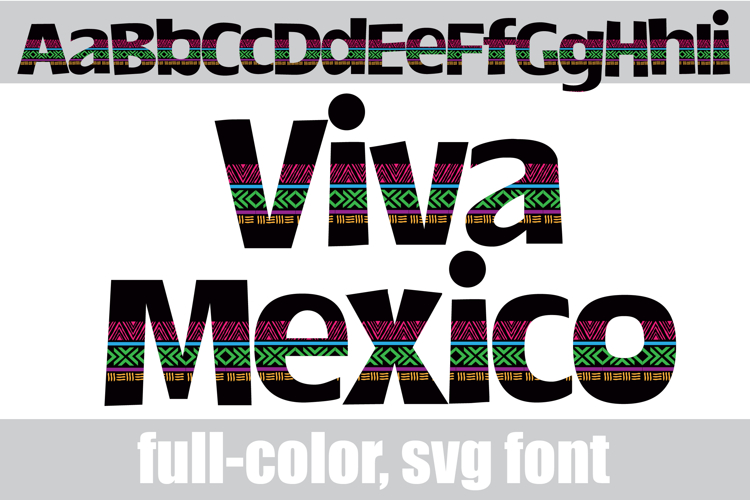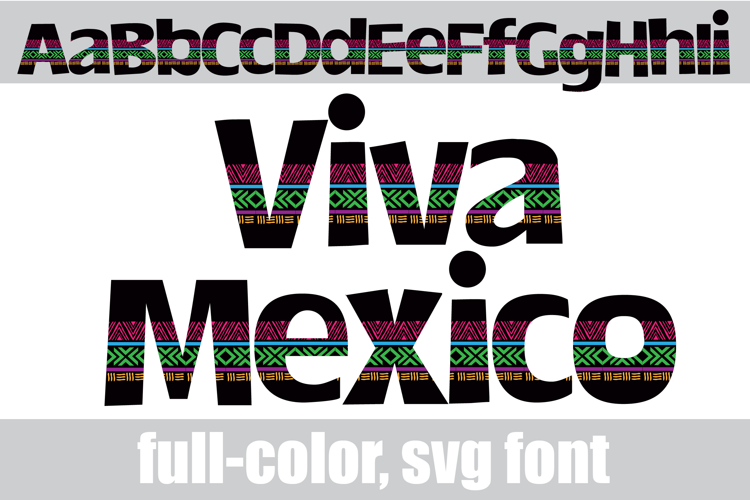
Viva Mexico Color Font
This full-color, sans serif font features an Aztec style design. There is an alt case of additional colors of each letter that you can access through your system's character map.